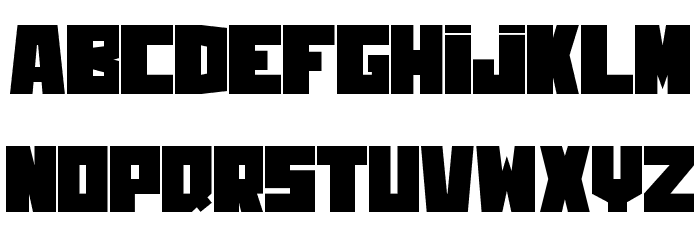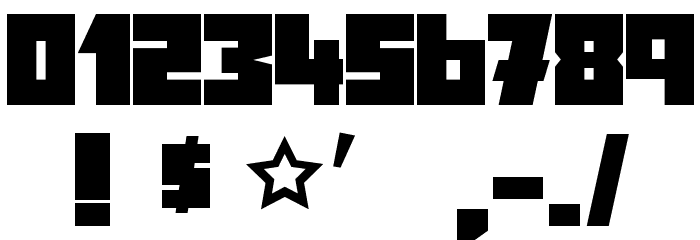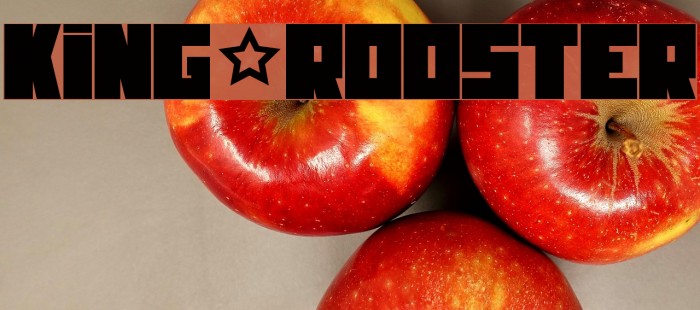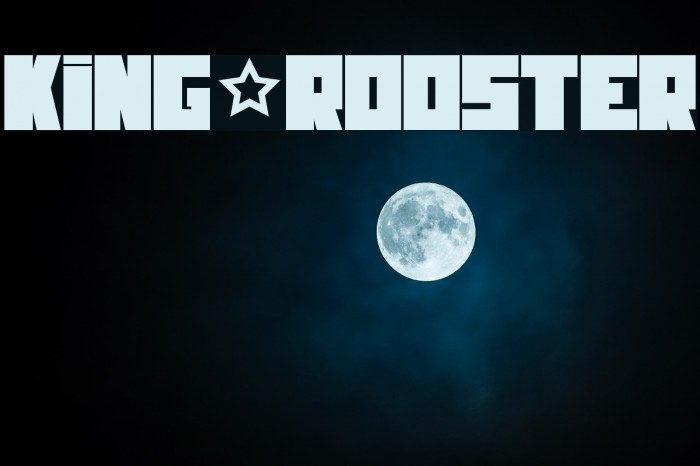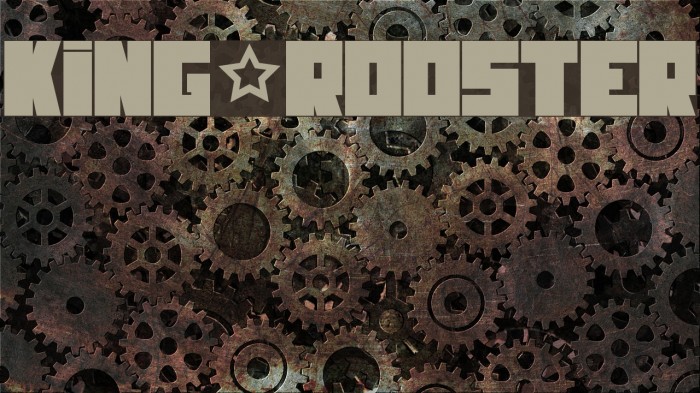
KING&ROOSTER Font
This bold, geometric font features a striking and powerful design with thick, block-like characters. The uppercase letters are uniform in height, with sharp angles and a solid, commanding presence. The numbers and special characters maintain this bold aesthetic, ensuring consistency across all glyphs. The font's style is reminiscent of retro video game graphics or industrial design, making it ideal for projects that require a strong visual impact. Its unique, angular shapes give it a modern yet nostalgic feel, suitable for attention-grabbing headlines or logos.
A bold, geometric font with a strong, angular design ideal for impactful headlines.
- Proposed Projects: Perfect for video game titles, posters, logos, and branding that require a bold statement.